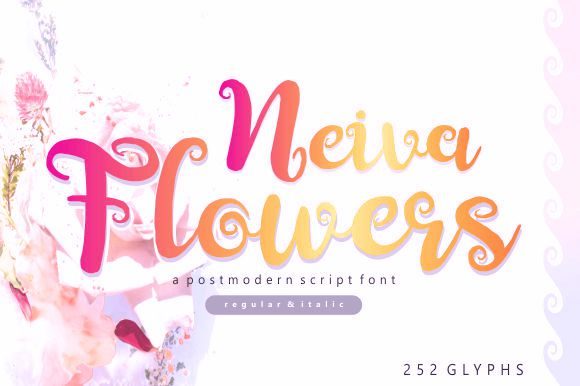
**Introducing Neiva Flowers: The Enchanting Script Font**
Immerse yourself in the enchanting world of Neiva Flowers, a captivating script font that exudes timeless elegance and creativity. Every letter is a stroke of artistry, designed to evoke the allure of hand-lettered calligraphy.
With its delicate curves and flowing lines, Neiva Flowers dances across digital landscapes, transforming ordinary words into extraordinary expressions. Picture the perfect wedding invitation, its graceful characters swirling with romance and charm. Imagine thank-you cards adorned with heartfelt messages, handwritten with an elegance that touches the soul.
Whether you're a seasoned designer or a creative enthusiast, Neiva Flowers empowers you to craft mesmerizing works of art. Its enchanting style adds a touch of whimsical charm to logos, business cards, and any design that yearns for a personal touch.
But Neiva Flowers is more than just a font; it's a gateway to a realm of creativity where inspiration blooms. Let its flowing strokes guide your imagination and create designs that captivate, inspire, and leave a lasting impression.
**Unleash Your Creativity with Neiva Flowers**
Step into a world where handwritten elegance meets boundless creativity. With Neiva Flowers, you'll discover endless possibilities to:
- Craft wedding invitations that exude romance and allure
- Design thank-you cards that convey gratitude with heartfelt grace
- Create quotes that inspire and motivate with an artistic touch
- Adorn greeting cards with messages that warm hearts
- Embellish logos and business cards with a touch of timeless sophistication
**Neiva Flowers: An Investment in Timeless Style**
Investing in Neiva Flowers is an investment in your creative potential. Its versatility and timeless appeal ensure that your designs will always be in vogue, radiating elegance and sophistication for years to come.
So, embrace the beauty of Neiva Flowers and embark on a creative journey that will leave an unforgettable mark. Let its enchanting strokes inspire you to create designs that touch hearts, ignite imaginations, and stand the test of time.